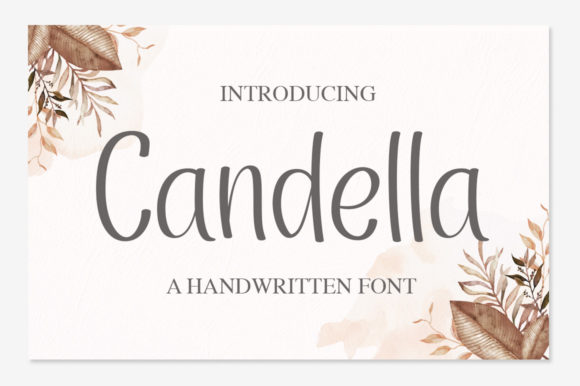
The Charm of Candella Font: A Designer’s New Best Friend
I still remember the project that led me to discover Candella Font. I was working on a custom chalkboard design for a client’s wedding, and I was struggling to find the perfect font that would give it a personal, hand-written feel. The client wanted something that would look like it was written with chalk, but I didn’t want it to look too perfect or digital. That’s when I stumbled upon Candella Font, and it instantly became my go-to choice.
An Honest Review of Candella Font
- ✨ Cute and Simple Lettering: Candella Font has a charming, hand-written feel that’s perfect for creating personalized designs.
- ✅ Authentic Look: The font has a realistic, chalkboard-like quality that adds a touch of warmth to any design.
- 💡 Versatility: Candella Font can be used for a wide range of projects, from teaching materials to social media graphics.
While Candella Font is an amazing choice for many projects, there are a few things to keep in mind:
- 🤔 Limited Formality: Candella Font is a casual, handwritten font, so it may not be the best choice for more formal projects.
- ⚠️ Legibility at Small Sizes: Like many handwritten fonts, Candella can be a bit tricky to read at very small sizes.
The Story Behind Candella Font
Candella Font was designed by a team of creatives who wanted to create a font that would capture the charm of handwritten chalkboard lettering. Inspired by the nostalgic feel of old-school chalkboards, they crafted a font that’s both simple and endearing.
Q: What type of projects is Candella Font best suited for?
Candella Font is perfect for projects that require a personal, hand-written feel, such as chalkboard designs, teaching materials, and social media graphics.